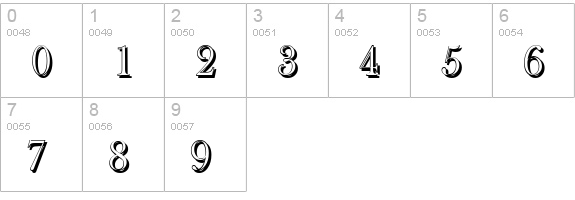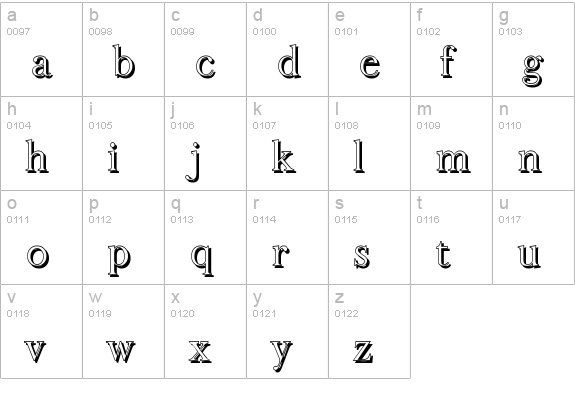
BaskerOldShadow-Light-Regular is a refined, elegant variant in the BaskerOldShadow typeface family \xE2\x80\x94 well suited to elegant body text, refined sub-headings, and luxury branding.
BaskerOldShadow-Light-Regular is a stylish and elegant font that exudes sophistication and charm. Its delicate curves and subtle shadows give it a unique and eye-catching appeal, making it perfect for a wide range of design projects. Whether you're creating invitations, logos, or branding materials, this font is sure to make a lasting impression. The best part? BaskerOldShadow-Light-Regular is available for free download at FontsMarket.com. With just a few clicks, you can add this beautiful font to your collection and start using it in your projects right away. Don't miss out on this fantastic opportunity to enhance your designs with the timeless beauty of BaskerOldShadow-Light-Regular. Download it now and let your creativity shine!